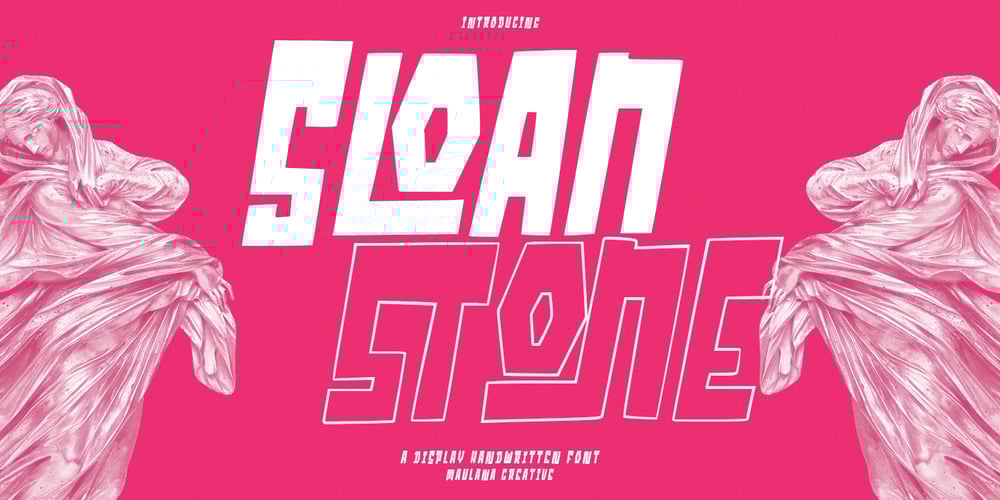
MC Sloanstone Outline Font Family was designed by Gilang Maulana and published by Maulana Creative. MC Sloanstone Outline contains 2 styles and family package options. Sloanstone is a handwritten display font. With bold block stroke, fun character with a bit of ligatures. To give you an extra creative work. Sloanstone font support multilingual more than 100+ language. This font is good for logo design, Social media, Movie Titles, Books Titles, a short text even a long text letter and good for your secondary text font with sans or serif. Make a stunning work with Sloanstone font. Cheers, Maulana Creative